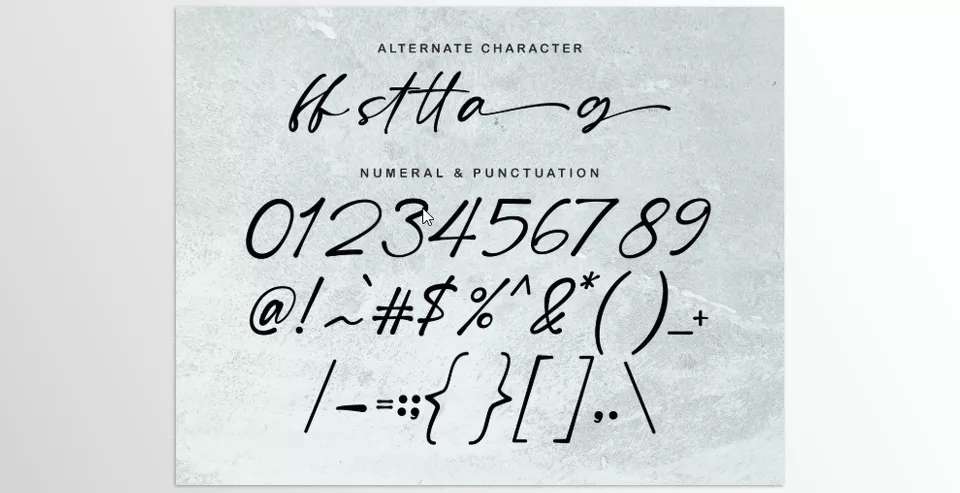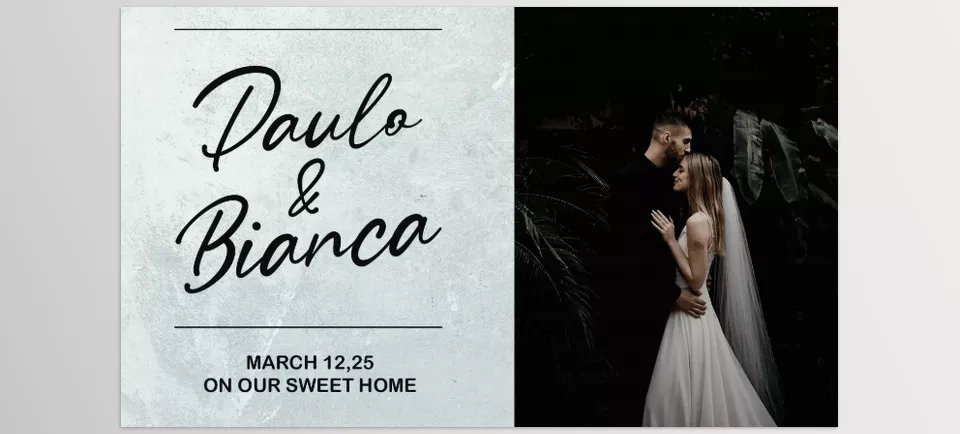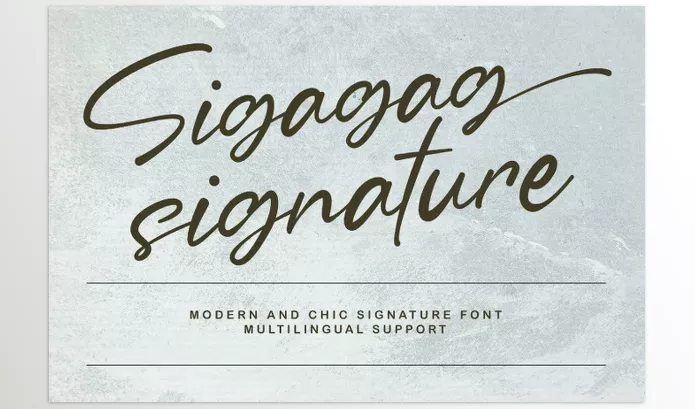
Sigagag Signature Display Font is one type of font that adds a specially distinct personal touched gleaned from brushwriting to creative work. This font is suitable for use on variety of items such as signatures, logos, branding, quotes, website headings, and many more.
Maulana Creative – Sigagag Signature Display Font Features
• Authentic Brush Style: Best suited for creative designs that need to emulate real-life signatures written by hand.
• Branding Enhancements: Unique and stylish trademarks become custom with this font.
• Ideal for Typography Quotes: Quotes designed with this font look classic and stand out.
• Website Header Ready: Draws attention to the headers while still being easy to read.
• Stationery Suitability: The font adds a personal touch to all stationery designs.
Preview Sigagag Signature Display Font
Image 1: Elevate your brand with a touch of authenticity.
Sigagag Signature Display Font - Elevate your brand with a touch of authenticity.
Image 2: Make your quotes and headers stand out with style.
Sigagag Signature Display Font - Make your quotes and headers stand out with style.